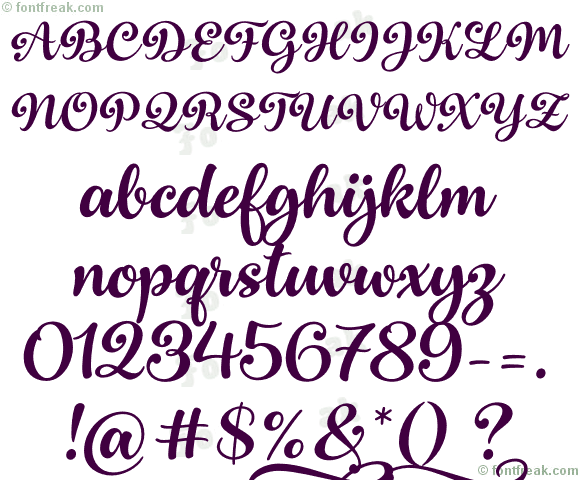
Superficious
About Superficious
Superficious is a captivating display font designed by Youssef Habchi, offering a unique blend of elegance and playfulness. This font falls into the script category, characterized by its fluid, cursive style that exudes charm and sophistication. The visual characteristics of the Superficious font include a moderate stroke weight and delightful contrast that enhances its legibility while maintaining an artistic flair. The letters are generously spaced, allowing for a graceful flow that captures attention. Decorative elements, such as the stylish swashes and loops, add a whimsical touch, making it perfect for a variety of design applications.
This versatile font is well-suited for an array of use cases. It shines in wedding invitations, where its romantic curves can set a beautiful tone for the big day. Additionally, Superficious is ideal for movie posters, lending a dramatic flair that helps to convey the film's theme. Restaurant menus can also benefit from its inviting appearance, enticing diners with a touch of elegance. Moreover, content creators can utilize this font to enhance social media graphics, making their posts stand out in an ever-crowded digital space.
What truly sets the Superficious font apart is its ability to combine artistic elegance with practical usability. Whether you're crafting a heartfelt invitation or designing eye-catching promotional materials, Superficious font free download ensures your projects will have a unique and memorable touch. Embrace this font to bring a sense of creativity and flair to your work.